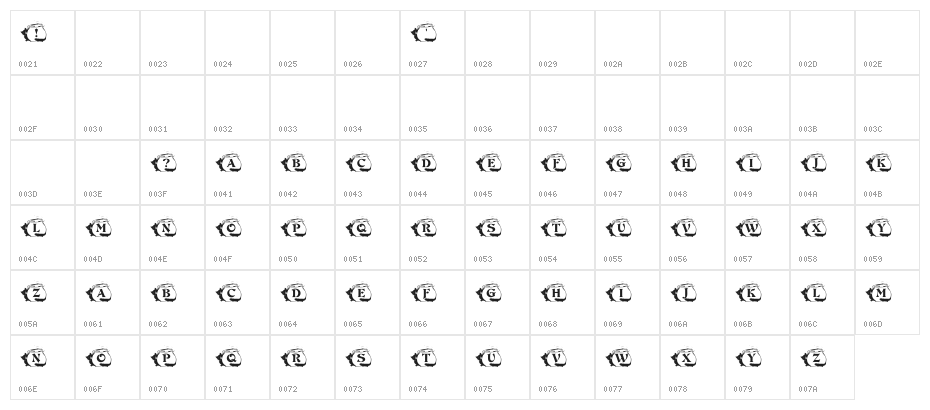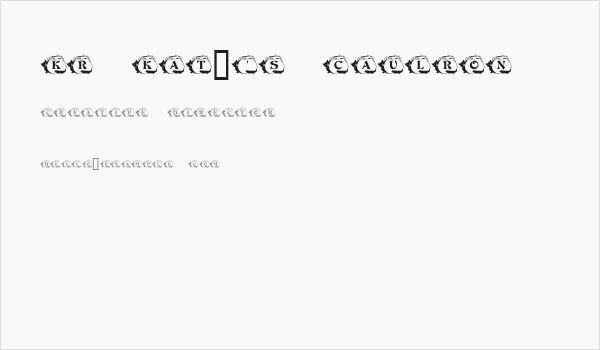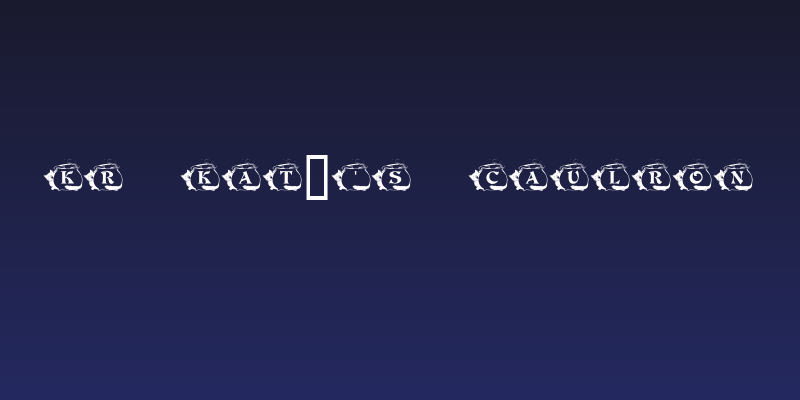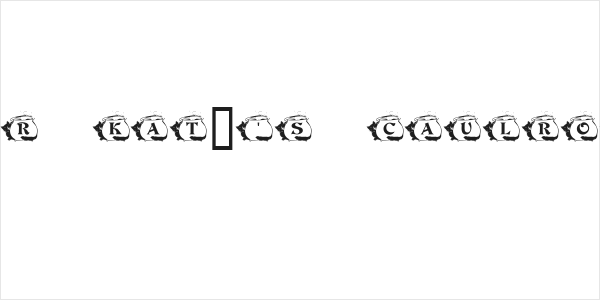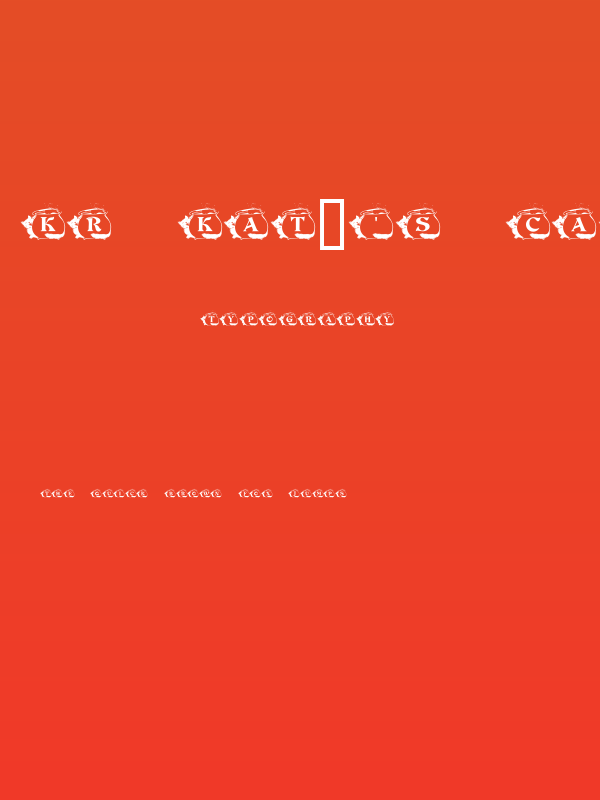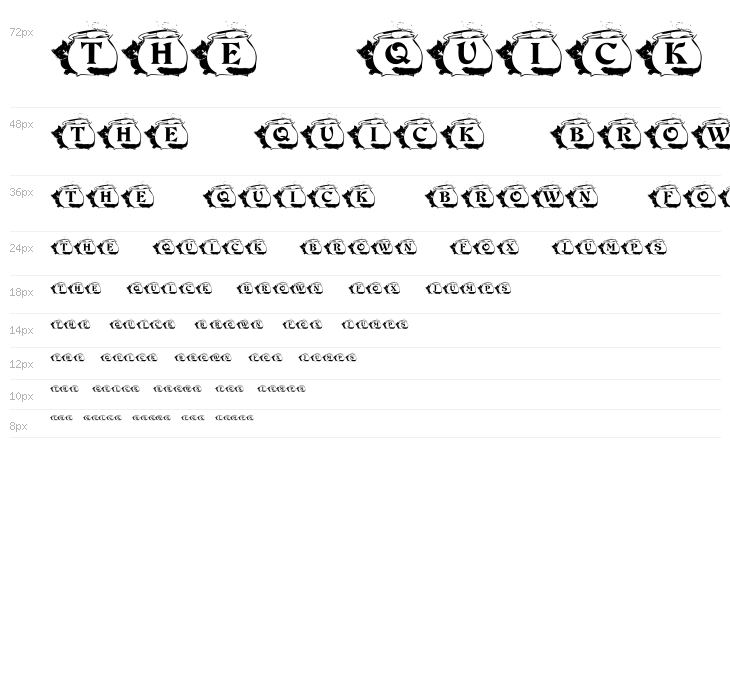
KR Kat's Caulron Font
KR Kat's Caulron Description
This decorative font features each character encased within a whimsical cauldron design, giving it a playful and magical appearance. The letters are bold and stylized, with a slightly gothic flair that complements the cauldron motif. The overall design is intricate, with each cauldron adding a unique touch to the characters, making it ideal for themed projects. The font maintains a consistent style across both uppercase and lowercase letters, ensuring uniformity in design. Its distinctive look is perfect for capturing attention and adding a touch of fantasy to any project.
| Proposed Projects | Ideal for Halloween-themed designs, fantasy book covers, party invitations, and decorative posters. |